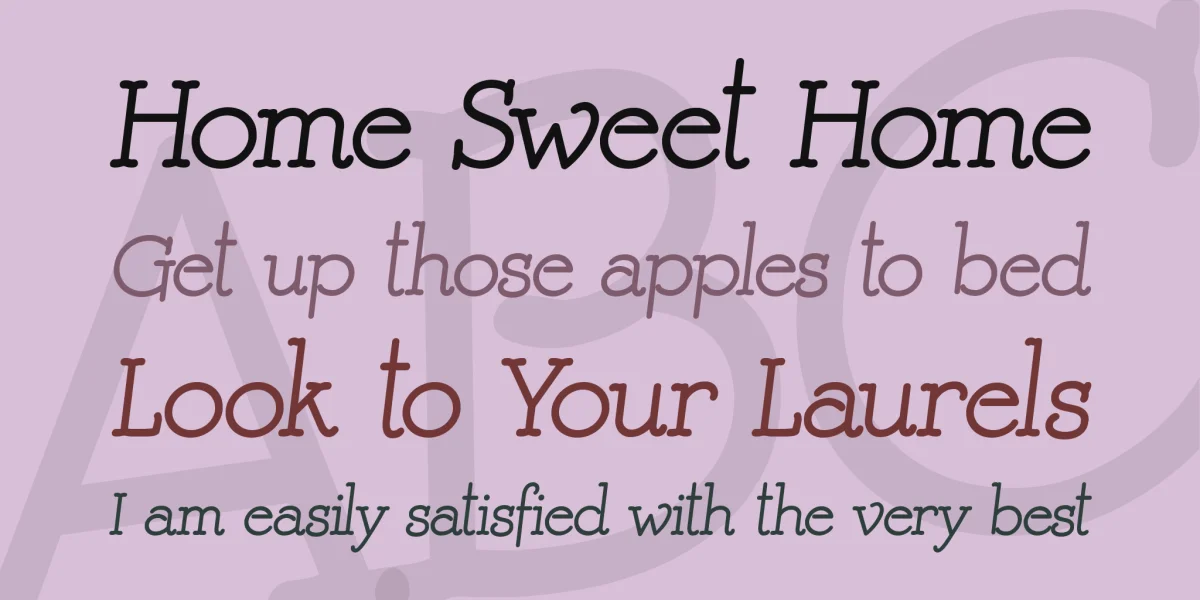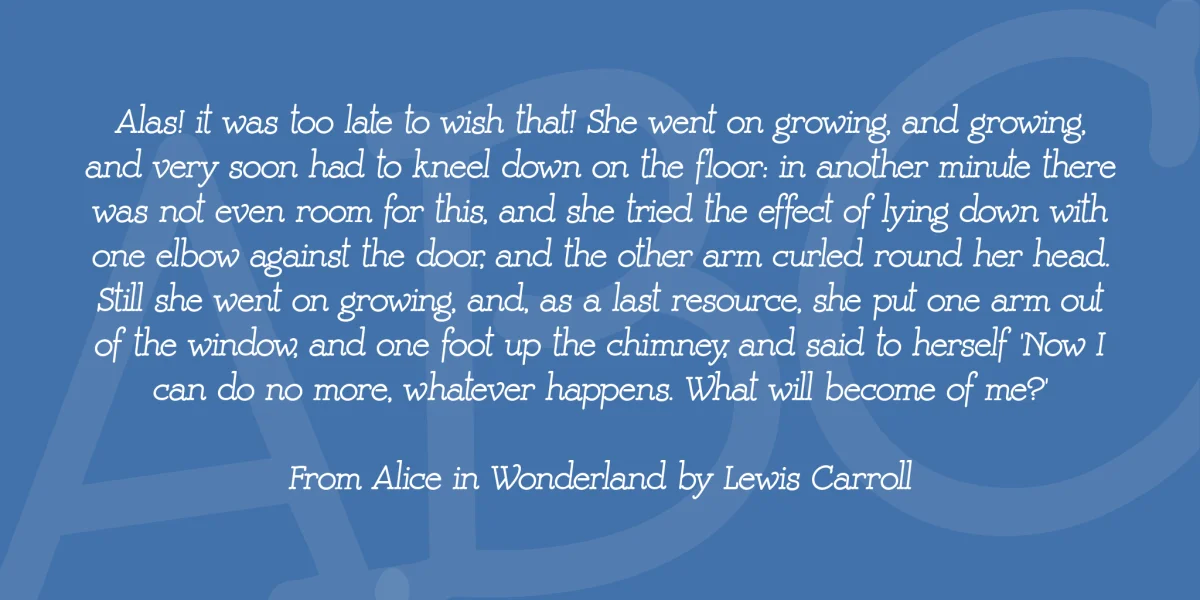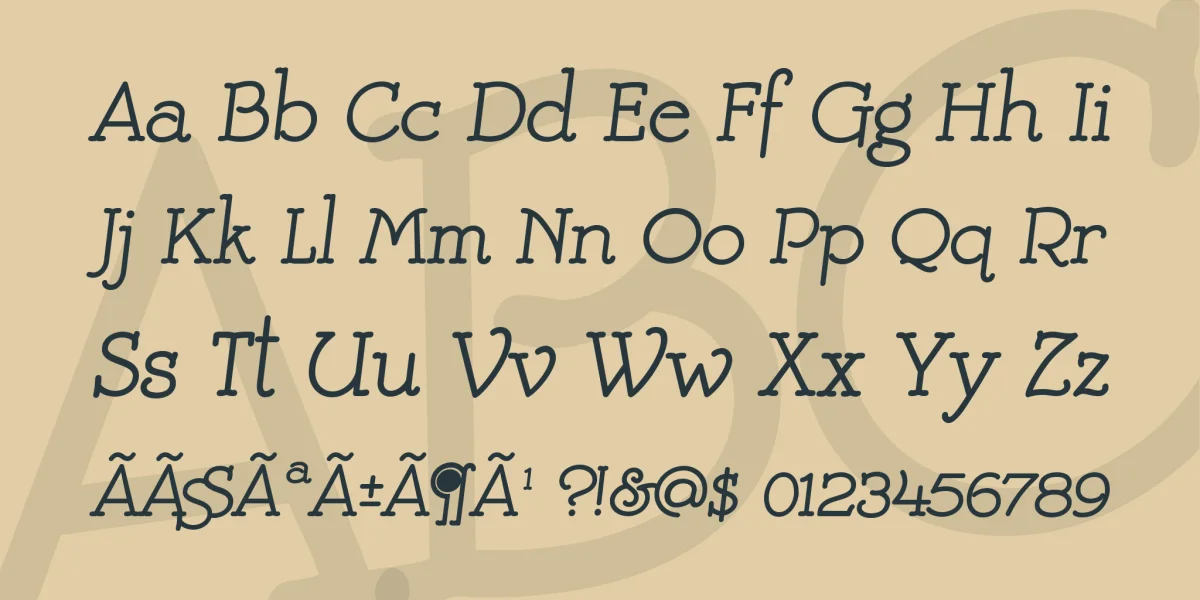
This is version 2.0 of Mistress Script. In this version I have a cofession to make: the shapes were originally based on a font called Splate designed as an OEM for greeting cards. My perspective is that Mistress Script is an experiment in combining elements from three common categories of today's typography: the typewriter, the modern elegance of Swiss sans strokes, and plain ol' calligraphy. This experiment was mainly to debunk two theories: 1) The great Jan Van Krimpen's famous belief that "calligraphic influence in type should be no more than an underlying force," and 2) The common belief being passed on nowadays in most design school around the world, teaching that typewriter serifs convey a blank emotional state that has more to do with machinery than with human touch. Hopefully you'll see the success that I believe was achieved with this experiment.